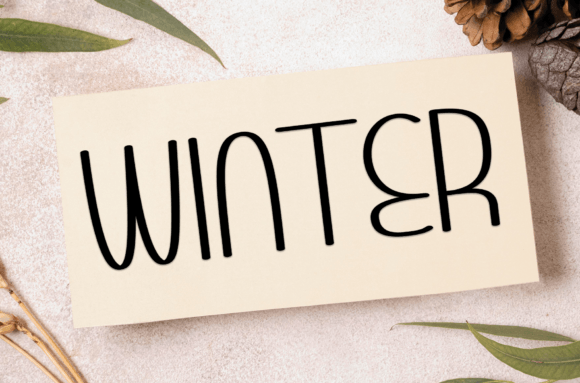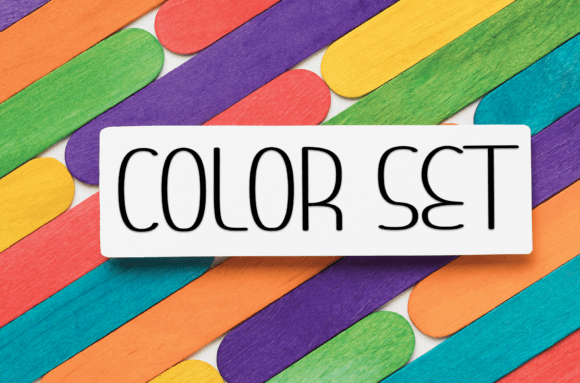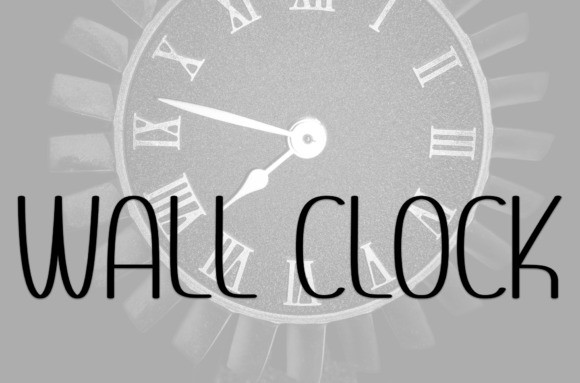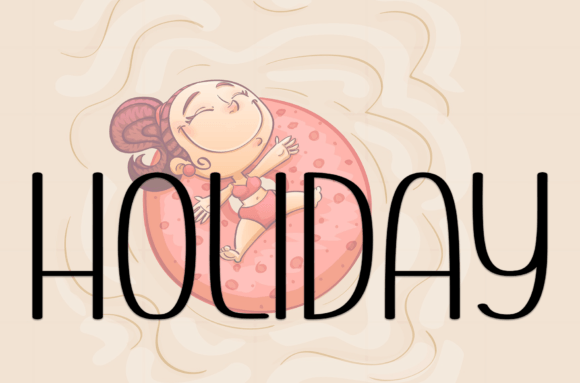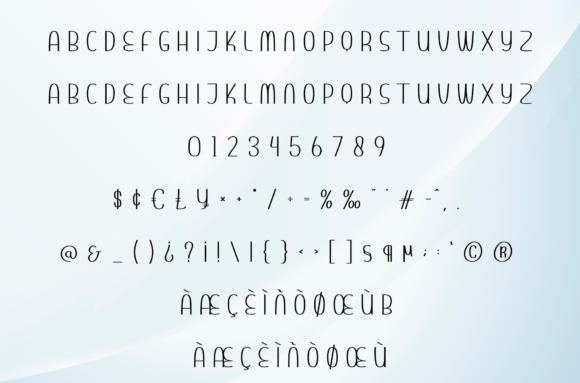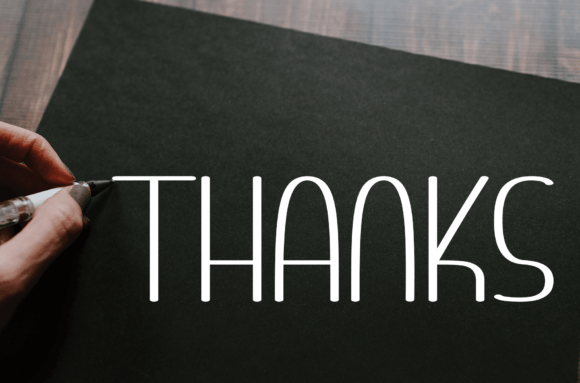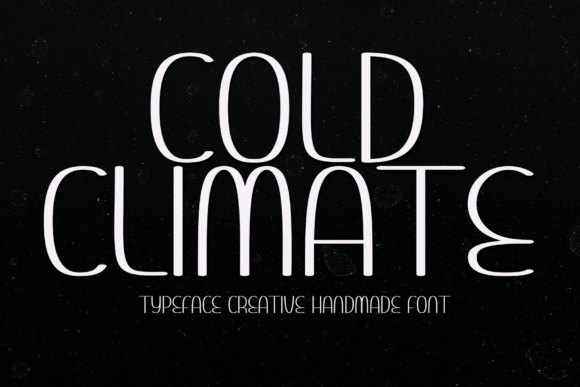
Cold Climate Font: Add a Touch of Whimsy to Your Designs
Are you looking for a font that can add a dash of fun and friendliness to your designs? Look no further than Cold Climate Font! This sweet and friendly handwritten font is perfect for creating wedding invitations, cards, and other designs that require a touch of whimsy. In this article, we’ll take a closer look at Cold Climate Font, its features, and how you can use it to elevate your designs.
What is Cold Climate Font?
Cold Climate Font is a beautiful, handwritten font that exudes warmth and friendliness. Its cute and fun design makes it ideal for a wide range of projects, from wedding invitations and cards to posters, flyers, and more. The font’s playful and approachable feel makes it perfect for designers and crafters who want to add a personal touch to their work.
Key Features of Cold Climate Font
- Handwritten design: Cold Climate Font has a beautiful, handwritten design that gives it a personal and unique feel.
- Cute and fun: The font’s playful and whimsical design makes it perfect for projects that require a touch of fun and friendliness.
- Versatile: Cold Climate Font can be used for a wide range of projects, from wedding invitations and cards to posters, flyers, and more.
- Easily readable: Despite its playful design, Cold Climate Font is easily readable, making it perfect for body text and headings.
How to Use Cold Climate Font in Your Designs
Cold Climate Font is a versatile font that can be used in a variety of ways. Here are a few ideas to get you started:
- Wedding invitations: Cold Climate Font is perfect for creating beautiful and unique wedding invitations that set the tone for a special day.
- Cards and stationery: The font’s playful design makes it ideal for creating fun and personalized cards and stationery.
- Posters and flyers: Cold Climate Font can add a touch of whimsy to your posters and flyers, making them stand out from the crowd.
- Social media graphics: Use Cold Climate Font to create engaging and fun social media graphics that showcase your brand’s personality.
Tips for Pairing Cold Climate Font with Other Fonts
Pairing Cold Climate Font with other fonts can create a unique and visually appealing design. Here are a few tips to keep in mind:
- Pair with a sans-serif font: Pairing Cold Climate Font with a sans-serif font can create a nice contrast and add visual interest to your design.
- Use a bold font for headings: Using a bold font for headings can help create a clear hierarchy of information and make your design more readable.
- Experiment with font sizes: Experimenting with font sizes can help create visual interest and add depth to your design.
Cold Climate Font is a sweet and friendly handwritten font that’s perfect for adding a touch of whimsy to your designs. Its cute and fun design makes it ideal for a wide range of projects, from wedding invitations and cards to posters, flyers, and more. With its versatility, readability, and unique design, Cold Climate Font is a must-have for designers and crafters looking to elevate their work.